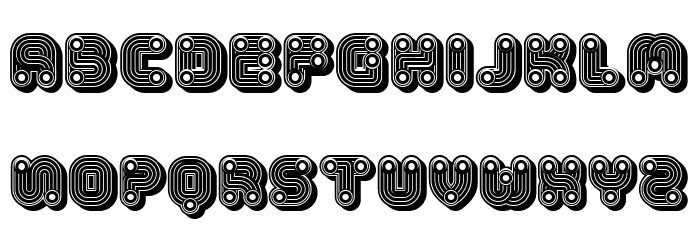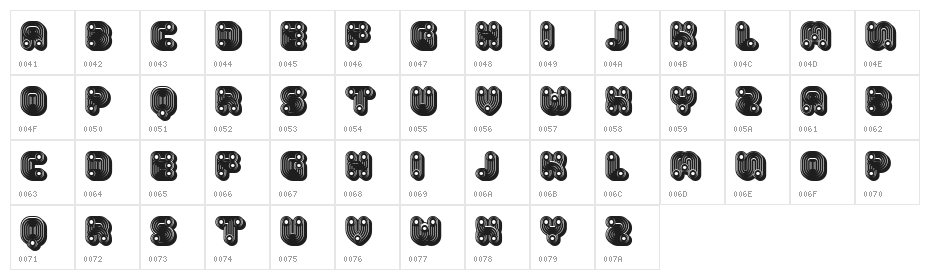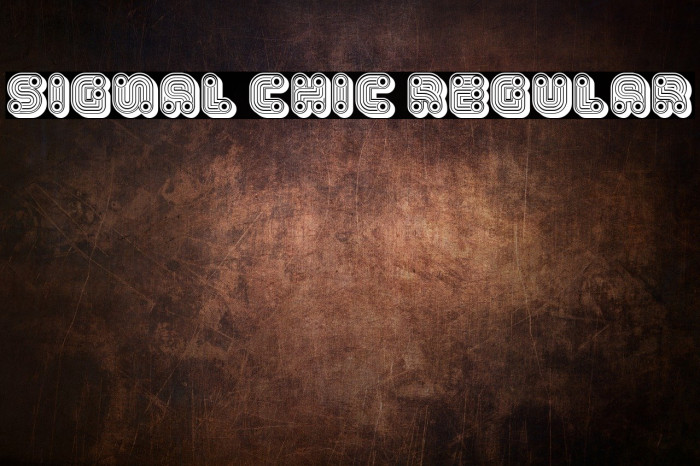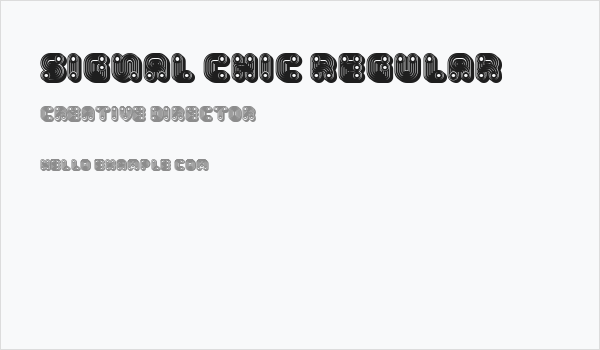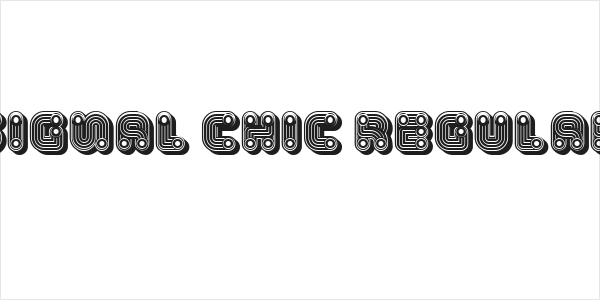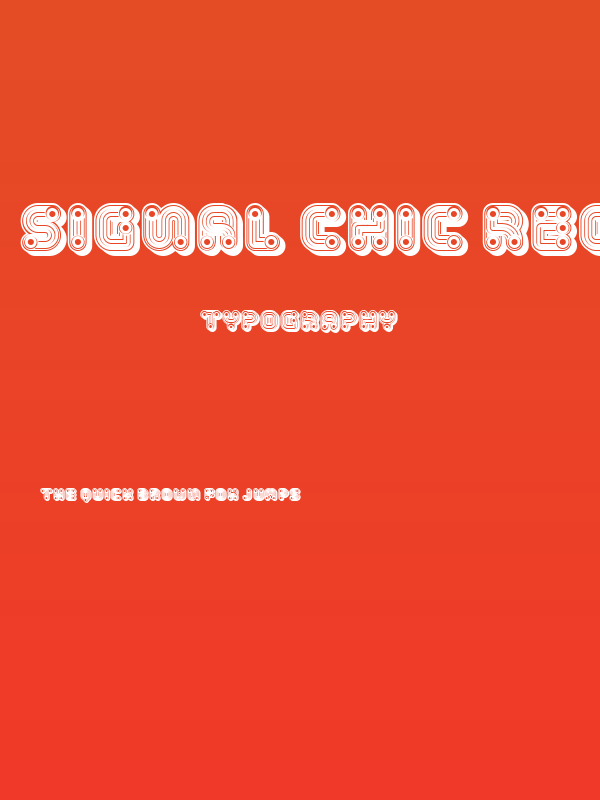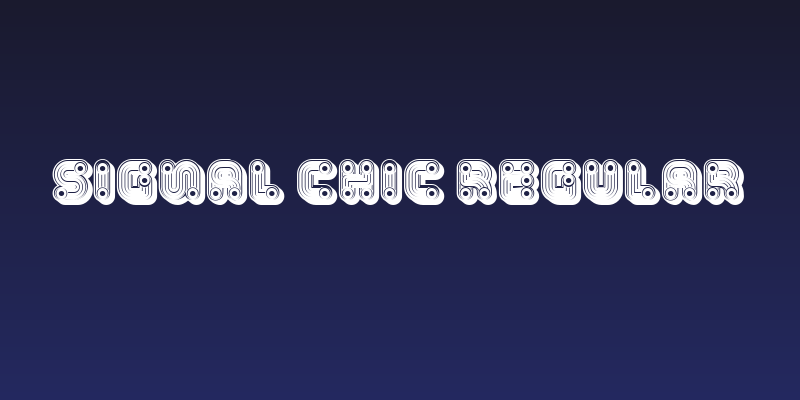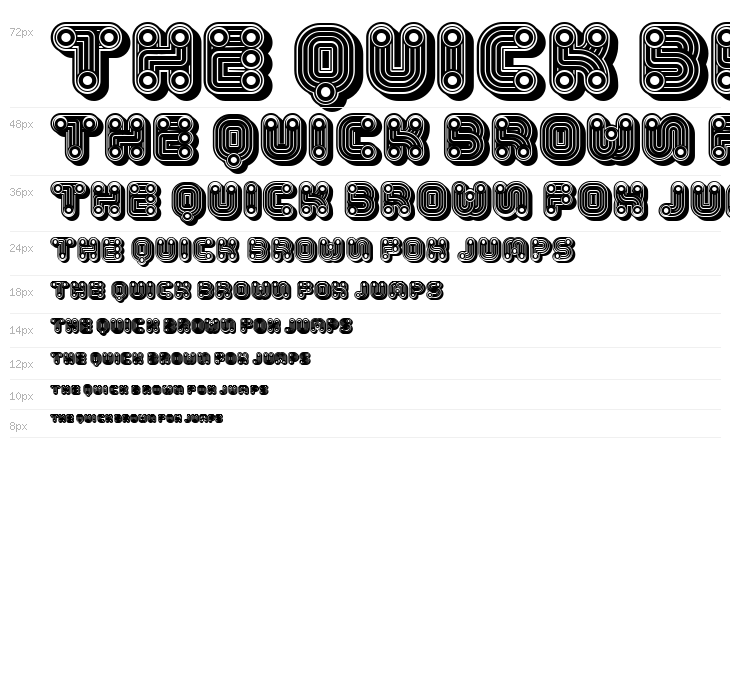
Signal Chic Regular Font
Signal Chic Regular Description
This font features a bold and intricate design with a layered, circuit-like appearance. Each character is composed of multiple concentric lines, creating a sense of depth and complexity. The rounded edges and uniform line thickness contribute to a futuristic and digital aesthetic. The font is highly decorative, making it ideal for attention-grabbing headlines or artistic projects. Its unique style is reminiscent of electronic circuits or retro-futuristic themes, offering a visually striking option for creative designs.
| Overall Style | Futuristic, Decorative |
| Proposed Projects | Ideal for tech-themed posters, sci-fi book covers, digital art projects, and branding for tech companies. |